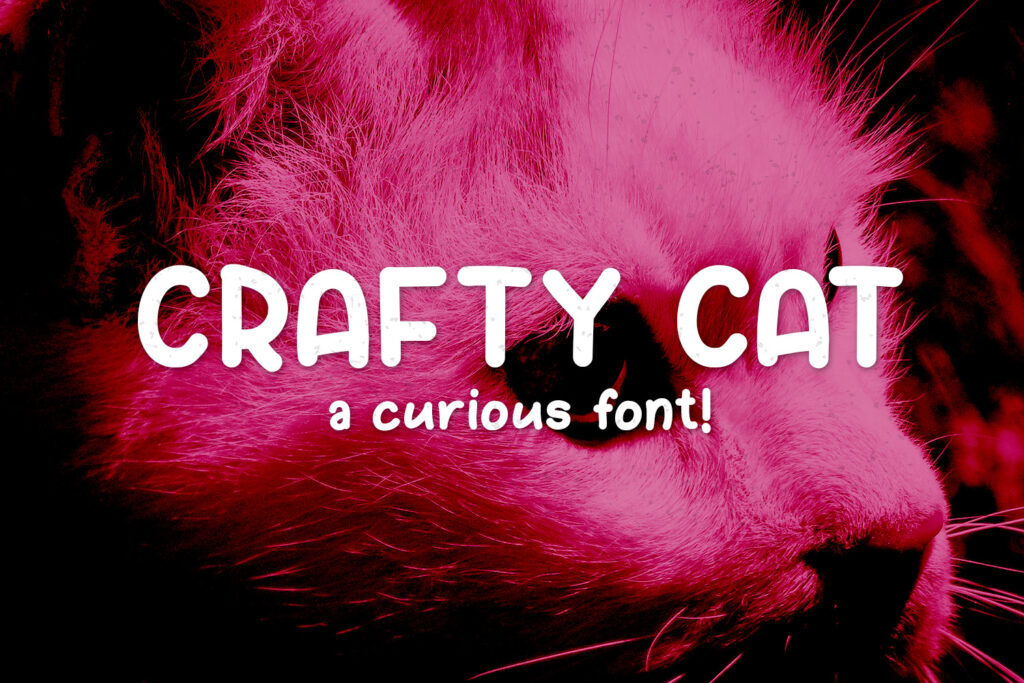
Crafty Cat Font: A Fun and Curious Font for Playful Designs
In the world of typography, fonts play a crucial role in conveying the tone and personality of a design. Whether you’re working on a branding project, creating a children’s book, or designing a fun and quirky website, the right font can make all the difference. That’s where the Crafty Cat font comes in – a fun and curious font that’s purr-fect for playful designs.
What is Crafty Cat Font?
Crafty Cat is a unique and creative font that’s designed to add a touch of whimsy to your designs. With its playful and curious nature, this font is ideal for projects that require a fun and lighthearted approach. The Crafty Cat font is a Google Fonts featured font, making it easily accessible for designers and developers.
Key Features of Crafty Cat Font
- Playful and Curious: The Crafty Cat font has a playful and curious nature that’s perfect for designs that require a fun and lighthearted approach.
- Unique and Creative: This font has a unique and creative design that’s sure to stand out in any project.
- Easily Accessible: As a Google Fonts featured font, Crafty Cat is easily accessible for designers and developers.
- Multilingual Support: The Crafty Cat font supports multiple languages, making it a great choice for international projects.
Usage Ideas for Crafty Cat Font
The Crafty Cat font is versatile and can be used in a variety of design projects, including:
- Branding and Logo Design: Use Crafty Cat to create a fun and memorable brand identity.
- Children’s Books and Education: This font is perfect for children’s books, educational materials, and other kid-friendly projects.
- Web Design: Add a playful touch to your website with the Crafty Cat font.
- Social Media Graphics: Use Crafty Cat to create fun and engaging social media graphics.
- Advertising and Marketing: This font is great for advertising and marketing materials that require a playful and attention-grabbing approach.
Font Pairing Suggestions
Pairing the Crafty Cat font with other fonts can create a unique and visually appealing design. Here are some font pairing suggestions:
- Open Sans: Pair Crafty Cat with Open Sans for a clean and modern look.
- Lato: Combine Crafty Cat with Lato for a fun and playful design.
- Merriweather: Pair Crafty Cat with Merriweather for a classic and elegant look.
Tips and Tricks for Using Crafty Cat Font
Here are some tips and tricks for using the Crafty Cat font:
- Use it Sparingly: Use Crafty Cat sparingly to add a touch of whimsy to your design.
- Experiment with Colors: Experiment with different colors to add a pop of color to your design.
- Mix and Match: Mix and match Crafty Cat with other fonts to create a unique design.
In conclusion, the Crafty Cat font is a fun and curious font that’s perfect for playful designs. With its unique and creative design, this font is sure to add a touch of whimsy to any project. Whether you’re working on a branding project, creating a children’s book, or designing a fun and quirky website, the Crafty Cat font is a great choice.
- What is the Crafty Cat font? The Crafty Cat font is a fun and curious font designed for playful designs.